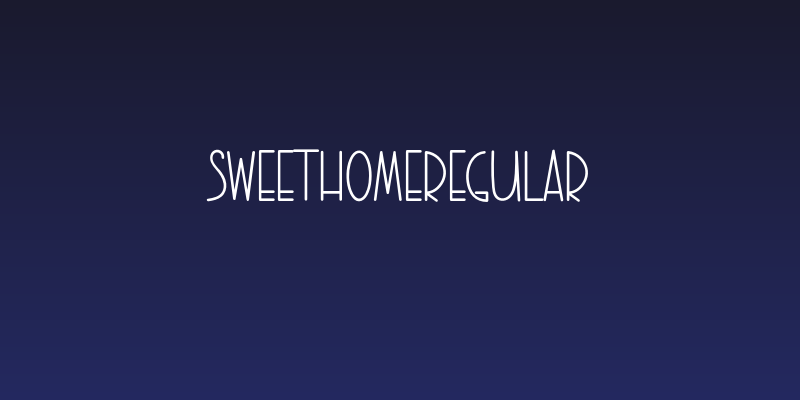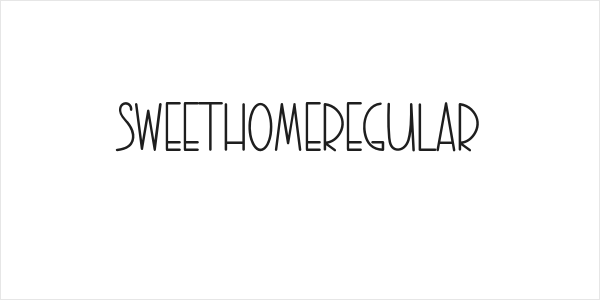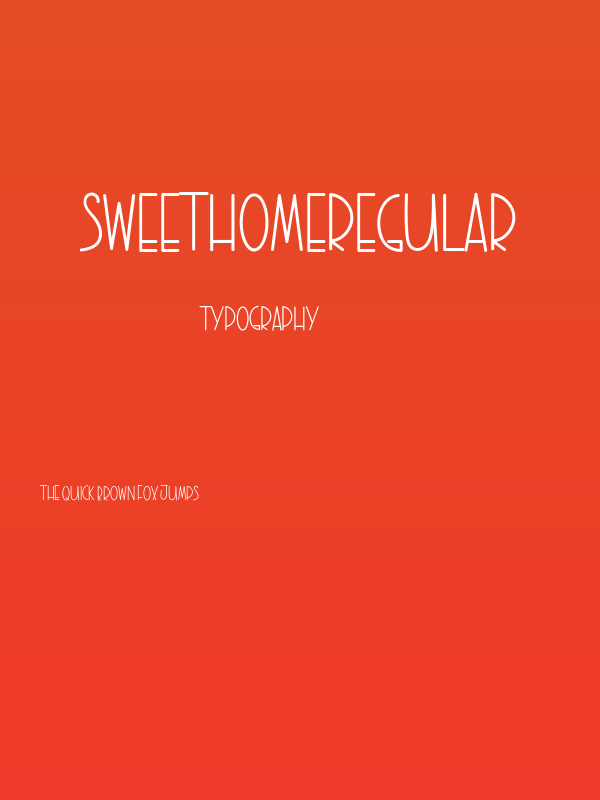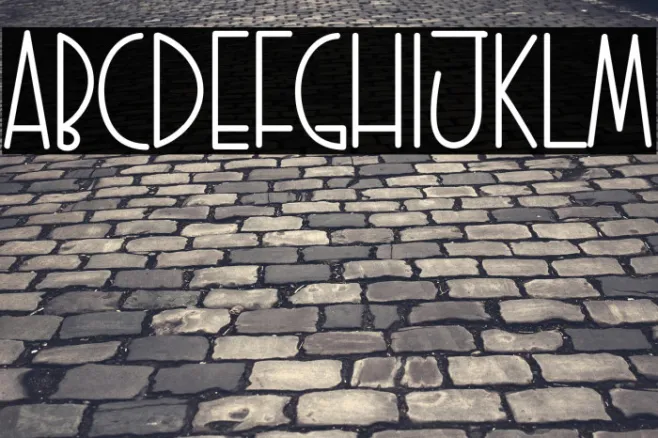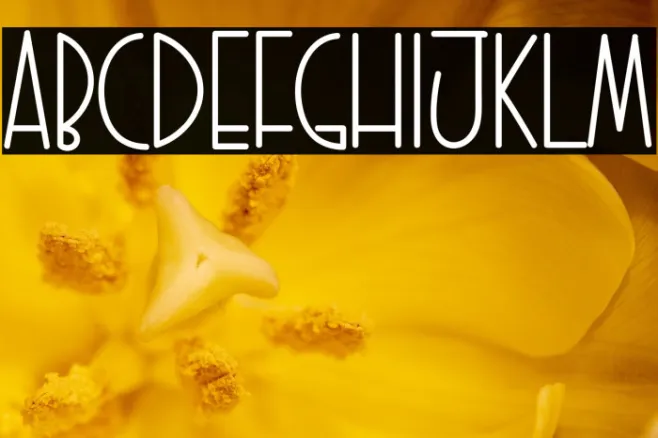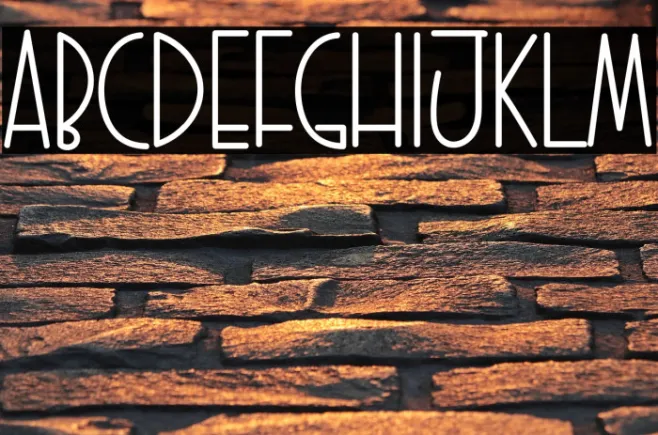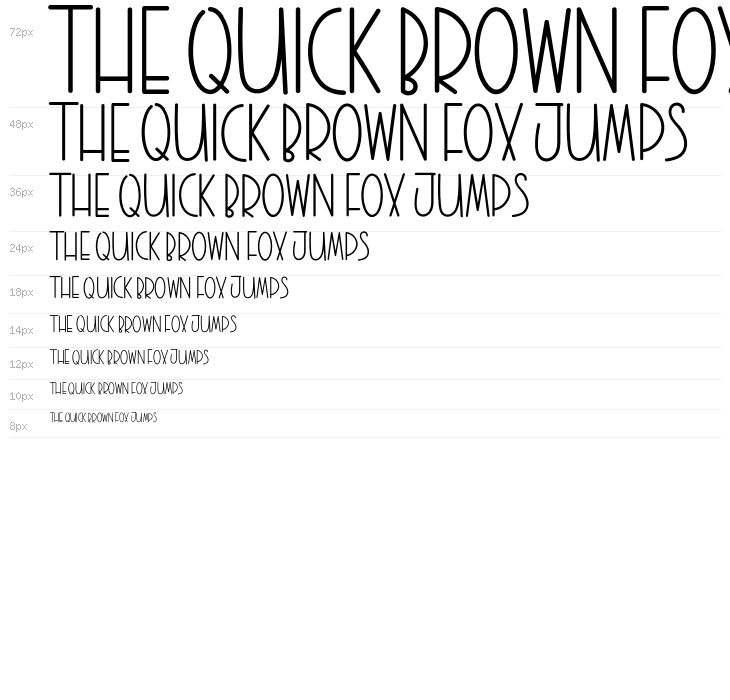
SWEETHOMERegular Font
SWEETHOMERegular Description
This font features a playful and whimsical design with tall, narrow characters that have a hand-drawn appearance. The strokes are consistent in width, giving it a uniform look, while the rounded edges add a friendly and approachable feel. The uppercase and lowercase letters are distinct, with the uppercase being slightly more elongated. Numbers and special characters maintain the same playful style, making them easily recognizable. The overall aesthetic is casual and informal, suitable for projects that require a touch of personality and creativity.
| Proposed Projects | Ideal for children's books, greeting cards, playful branding, and creative posters. |